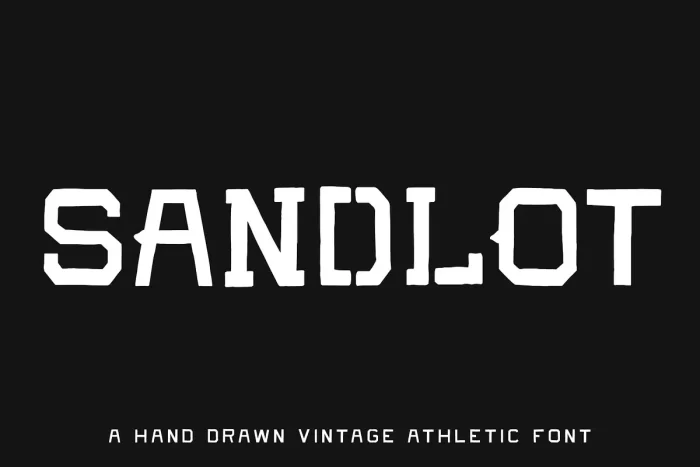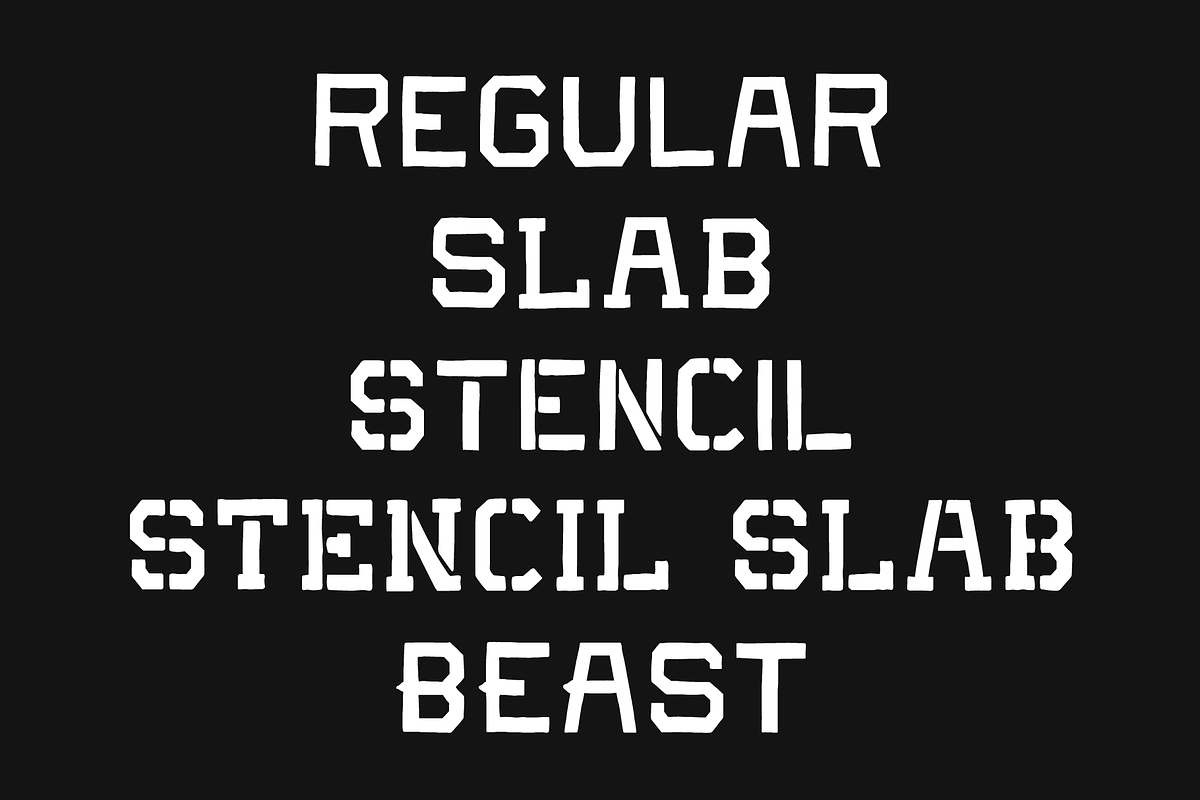
SANDLOT was the perfect name for this font. When we hear “Sandlot” we think of some young scrappy kids who loved ball. This font is truly a representation of that attitude and energy. It’s scrappy, rough around the edges, and ready to rumble. Perfect for apparel graphics, logos, and anything needing some ‘won’t take no mess’ attitude. It pairs perfectly with many of my other athletic-inspired fonts.